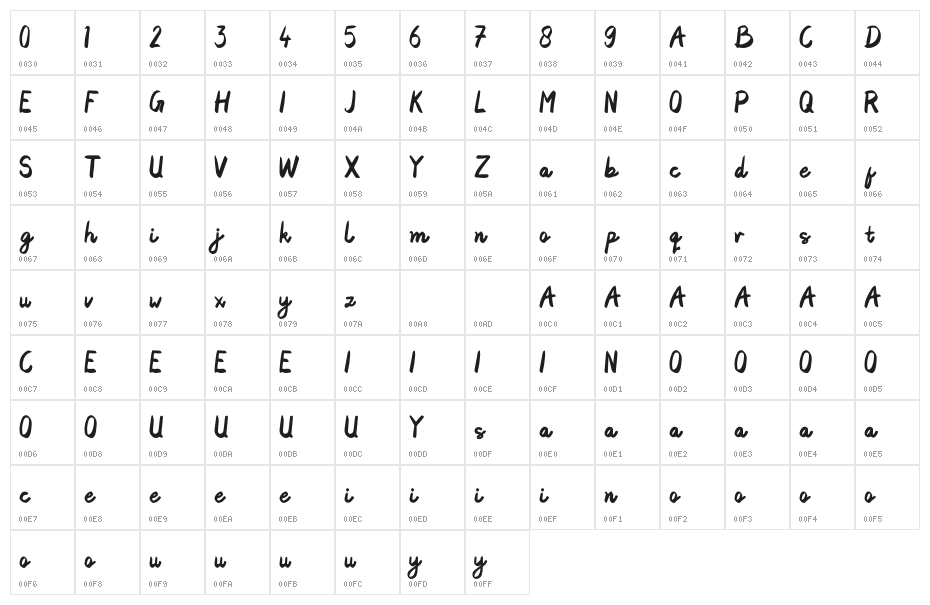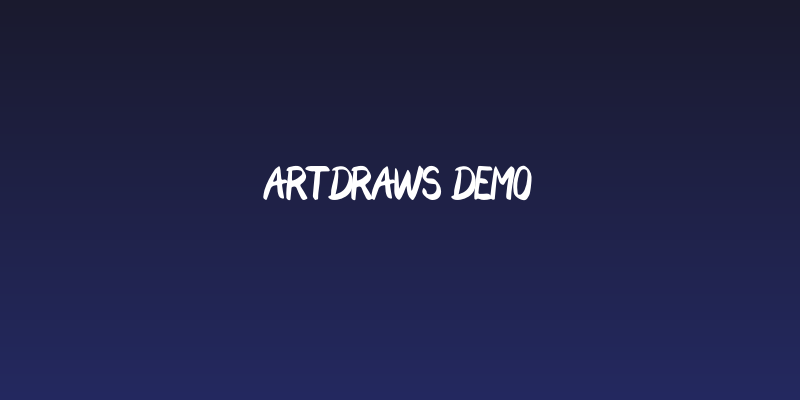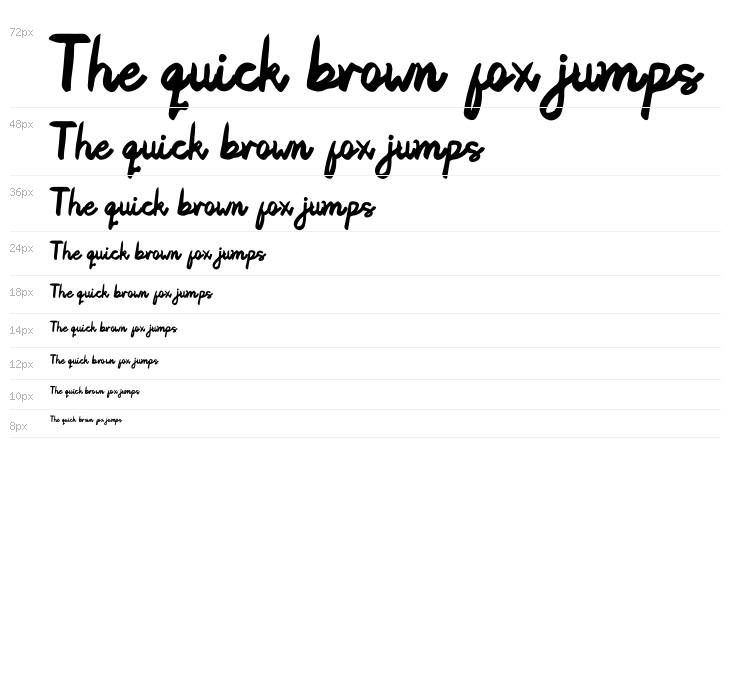
Artdraws Demo Font
Artdraws Demo Description
This font features a bold and expressive handwritten style, characterized by its fluid and dynamic strokes. The uppercase letters are bold and slightly slanted, giving a sense of movement and energy. The lowercase letters maintain a consistent flow, with some characters connecting seamlessly, enhancing the handwritten feel. The numerals are clear and bold, matching the overall style of the alphabet. The font's playful and casual appearance makes it suitable for creative and informal projects. Its unique style stands out, making it ideal for designs that require a personal touch.
| Proposed Projects | Ideal for greeting cards, invitations, posters, and branding materials that require a personal and creative touch. |